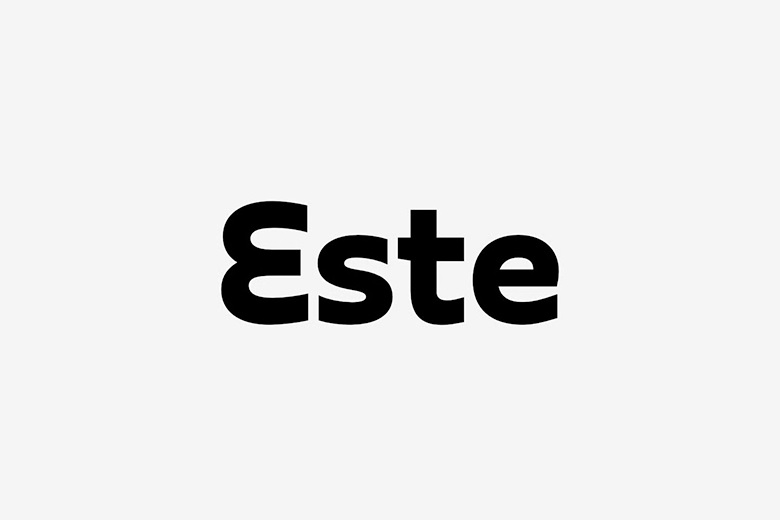
Este Light Font
Este Light Font is a modern sans-serif typeface that comes in seven weights, from Thin to Bold. It’s a great choice for branding, logos, transportation, product design, advertising, and packaging. You can also use its alternative characters with OTF stylistic sets to create more variety.
Este Light Sans Serif Font